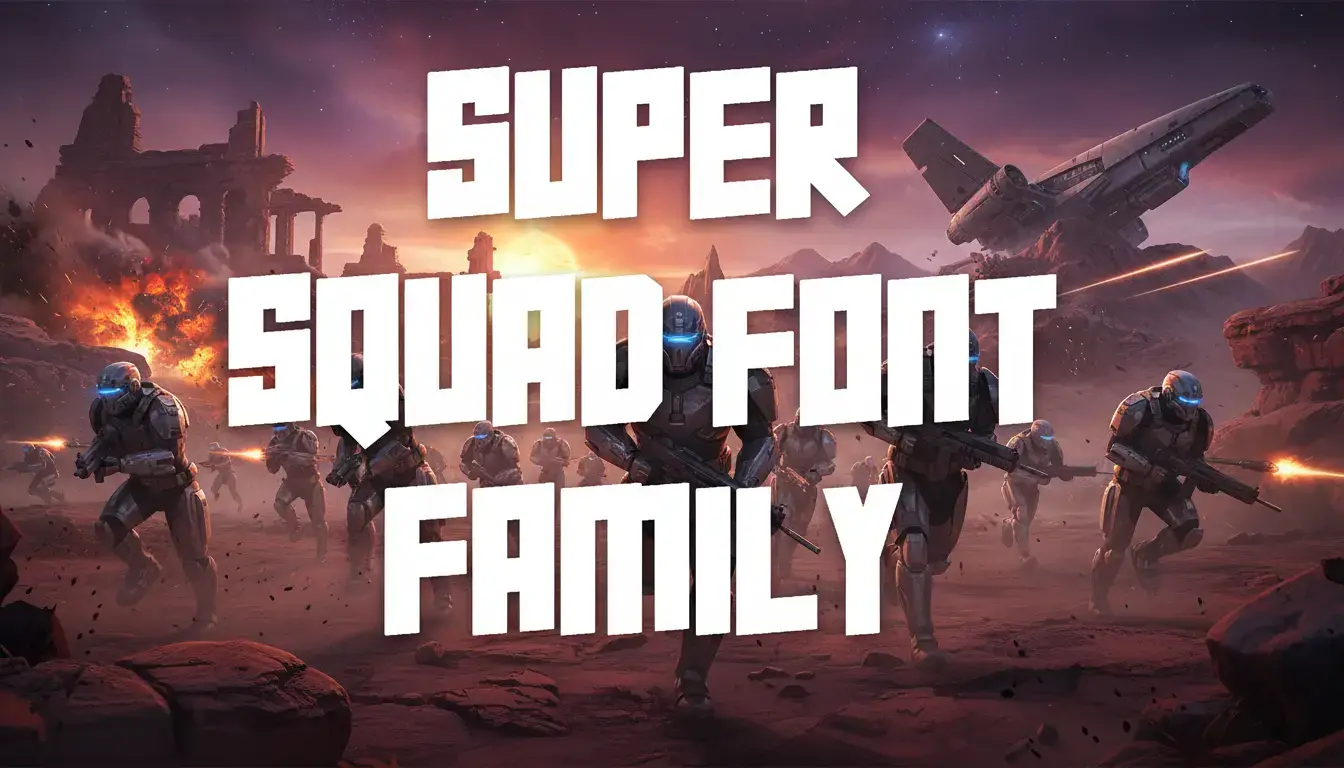
Super Squad is a fancy font. Bold and full of character, it's built to stand out rather than blend in. You get two styles in one free ZIP, and the preview above lets you test each one before you download.
What You Can Type With Super Squad
You get every letter from A to Z in both cases and all the numbers from 0 to 9, which means Super Squad can handle full sentences, dates and prices. Common punctuation such as &, !, ? and @ is included as well. It also has the accented letters you need for Spanish, French, German, Portuguese and Italian.
Where Super Squad Works Best
Think of Super Squad for posters, logos and eye-catching headlines. Use it for one standout word or headline and let simpler fonts handle the rest. Because the family has more than one style, you can mix them in a single design for headings, subheadings and highlights.
Does Super Squad support accented letters?
Yes. Super Squad includes the accented letters needed for Spanish, French, German, Portuguese and Italian, so it works for more than just English.